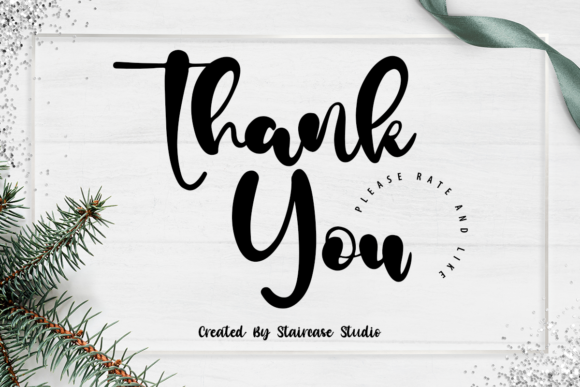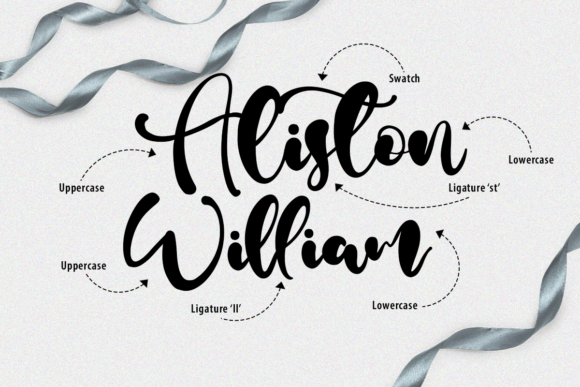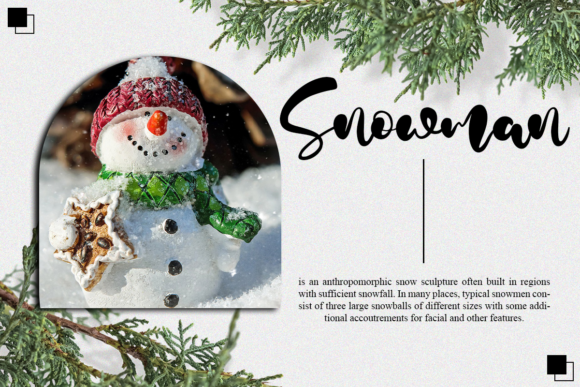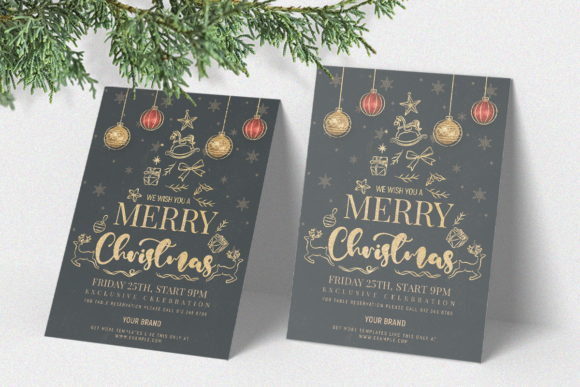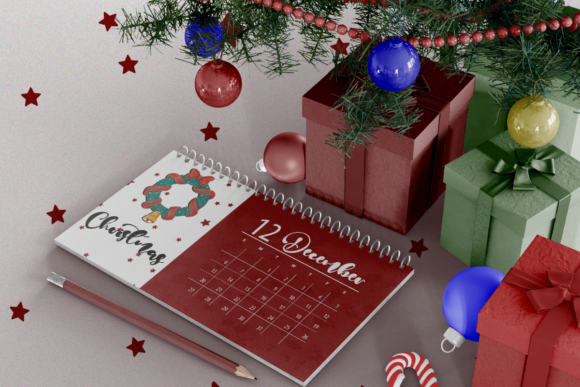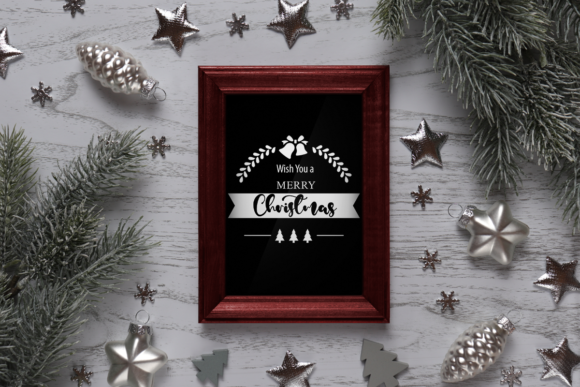
About Adam Script Font
Adam Script is a modern script font that looks relaxed and authentic. It is perfect for creative projects that need a personal feel, such as wedding invitations, Christmas cards, name tags, personal branding, or more.